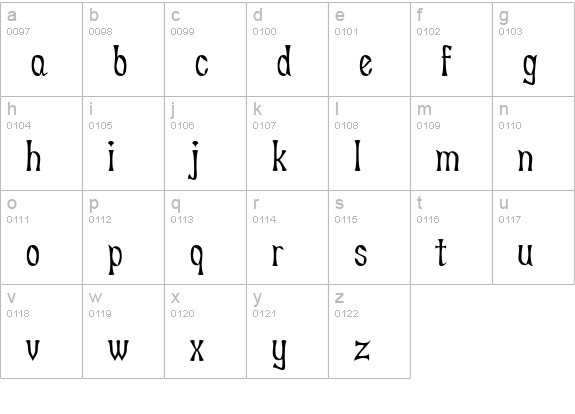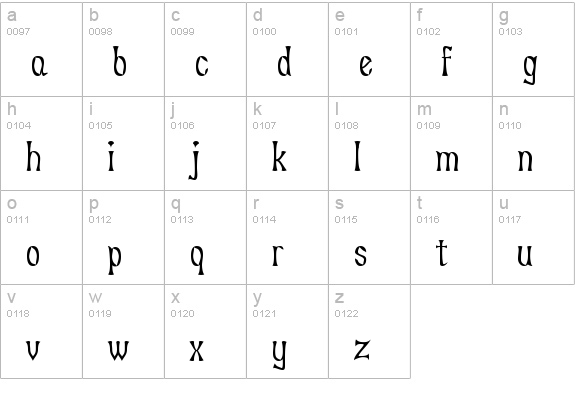
UUeirdie Roman Font Details
UUeirdie Roman is a captivating and unique font that effortlessly combines elegance with a touch of quirkiness. Its beautifully crafted letterforms exude a sense of timeless sophistication, making it perfect for a wide range of design projects. With its delicate curves and subtle flourishes, UUeirdie Roman adds a touch of personality to any text it graces. Each letter is meticulously designed to create a harmonious flow, ensuring a visually pleasing reading experience. Whether it is used for headings, body text, or even logos, this font is sure to make a lasting impression. One of the most remarkable aspects of UUeirdie Roman is that it is free. Yes, you read that right - this remarkable font is freely available to download at FontsMarket.com. This means that designers, creatives, and enthusiasts alike can access this font without any cost, allowing for a limitless array of possibilities in their projects. So why wait? Embrace the distinctive charm of UUeirdie Roman and elevate your designs to new heights. Download this font today from FontsMarket.com and unleash your creativity with this versatile and captivating typeface.